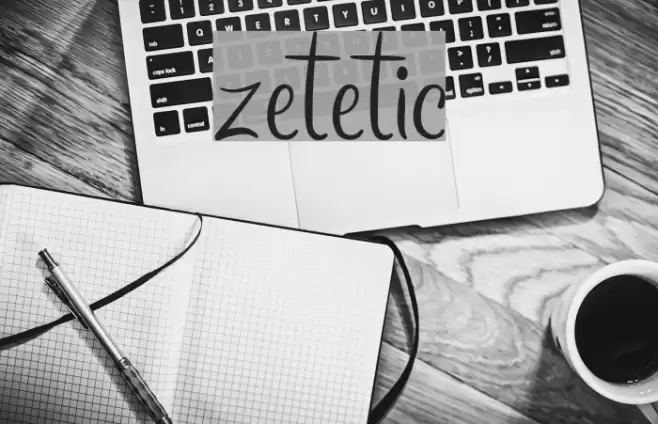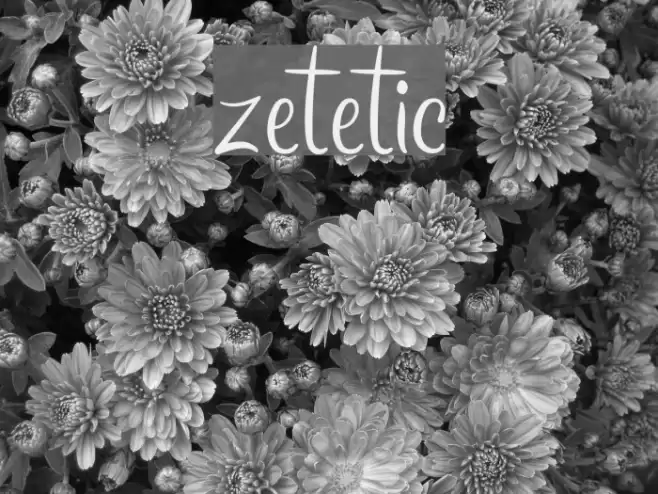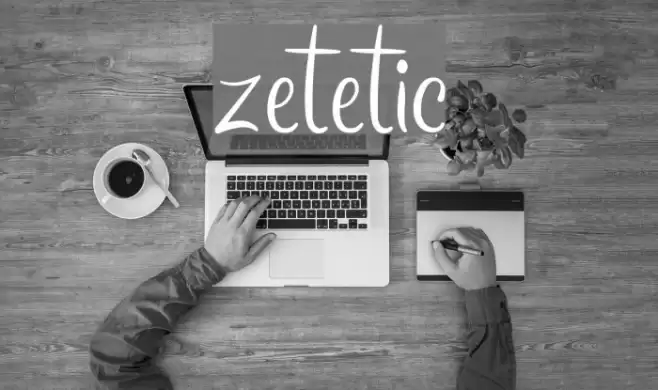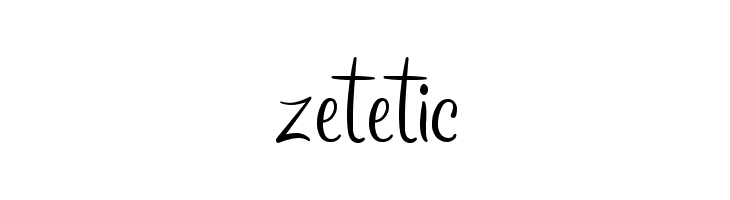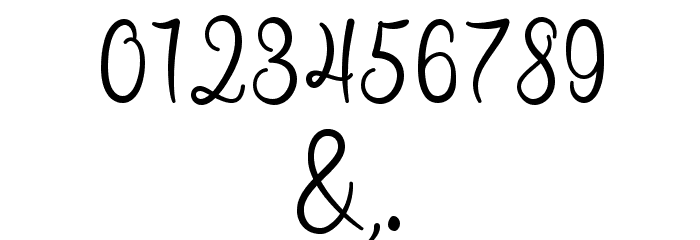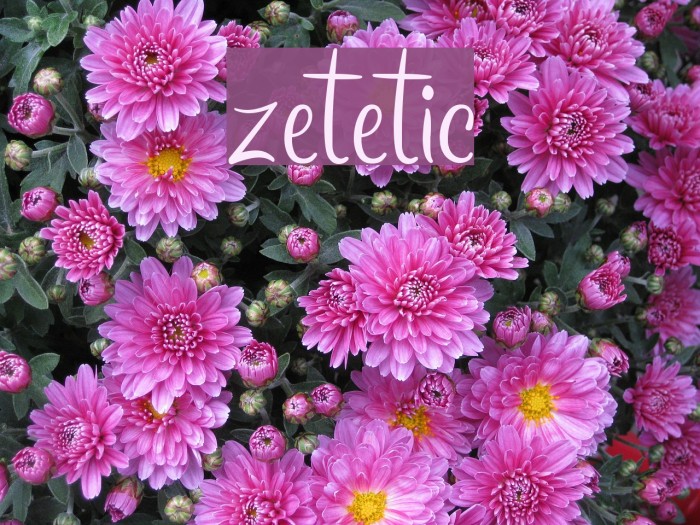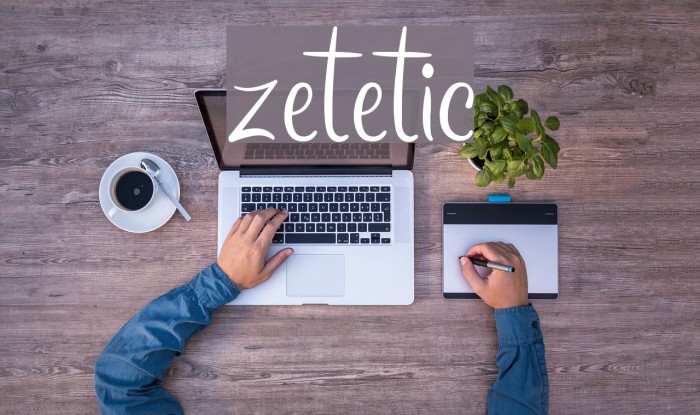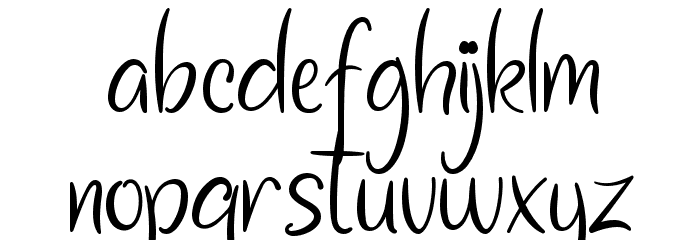
zetetic Font
zetetic Description
This font features a playful and casual handwritten style, characterized by its smooth, flowing lines and slightly irregular shapes that give it a personal touch. The uppercase letters are tall and narrow, while the lowercase letters maintain a consistent height, creating a harmonious balance. The numbers are rounded and match the overall style, contributing to the font's cohesive appearance. Special characters like the ampersand and comma are creatively designed, adding to the font's charm. This font's informal and friendly nature makes it suitable for a variety of creative projects.
A playful, handwritten font with smooth, flowing lines and a casual style from Uncategorized fonts.
- Proposed Projects: Ideal for greeting cards, invitations, personal branding, and creative social media graphics.
- Overall Style: Casual
- Use Case: Logos, Invitations, Greeting Cards